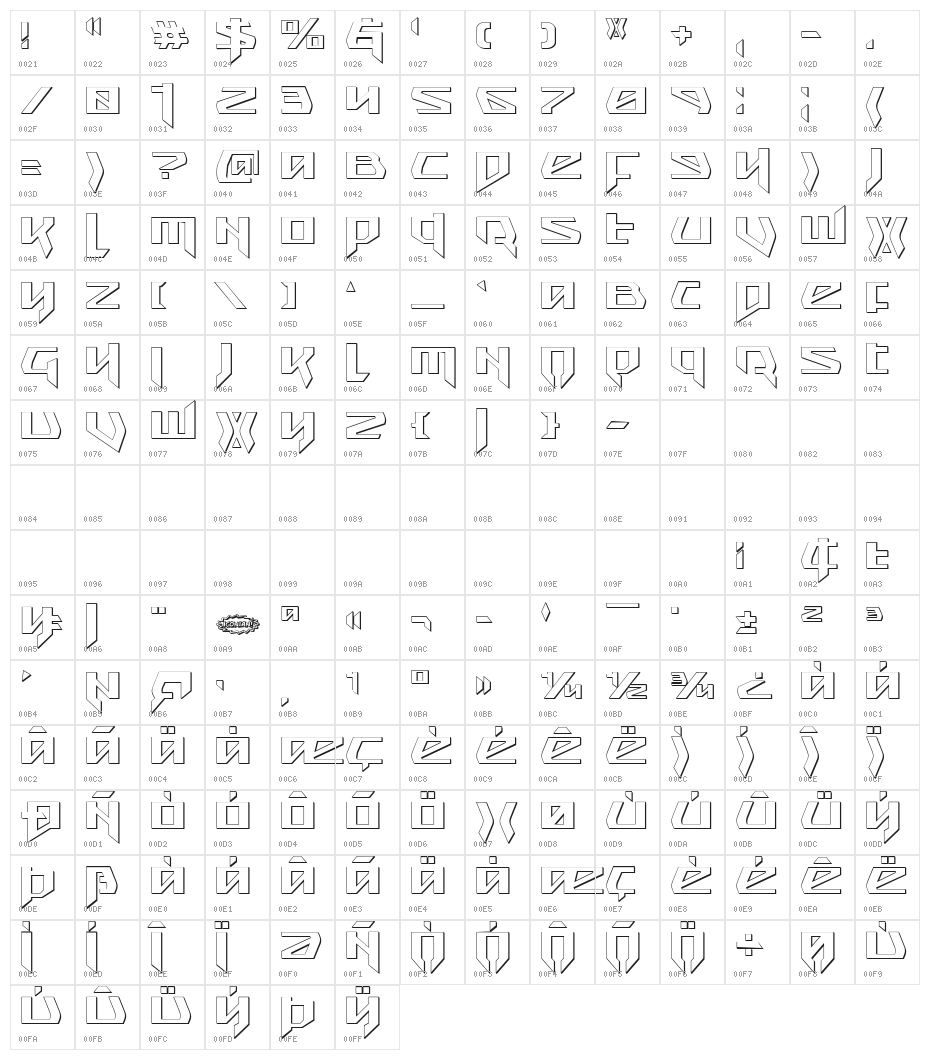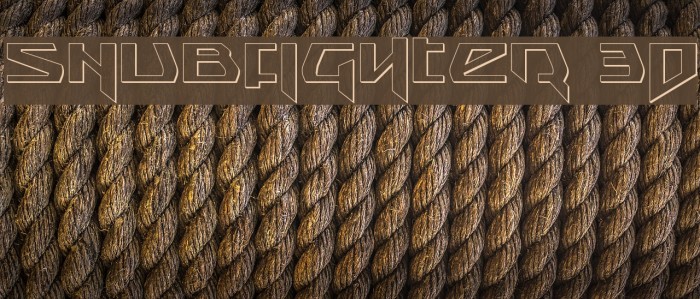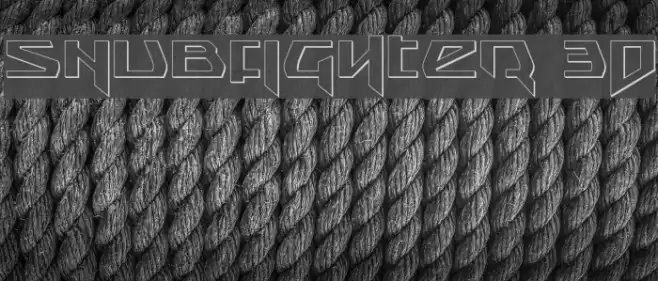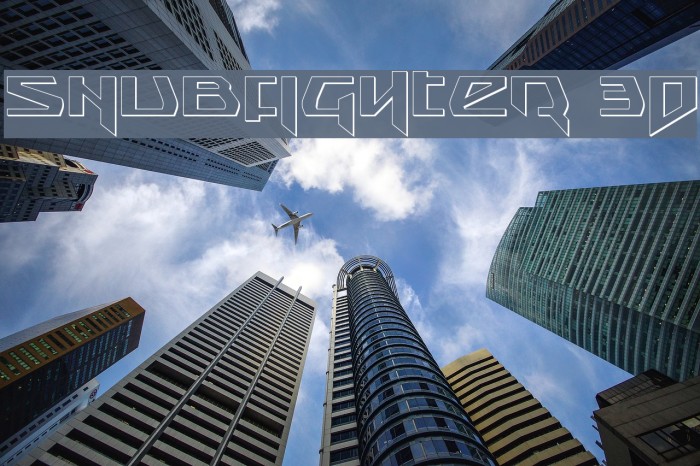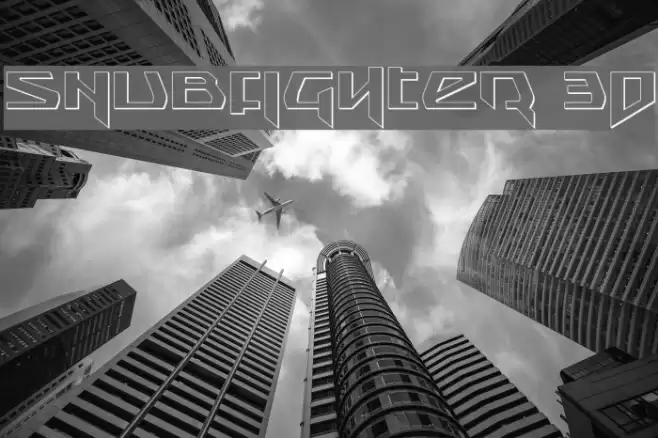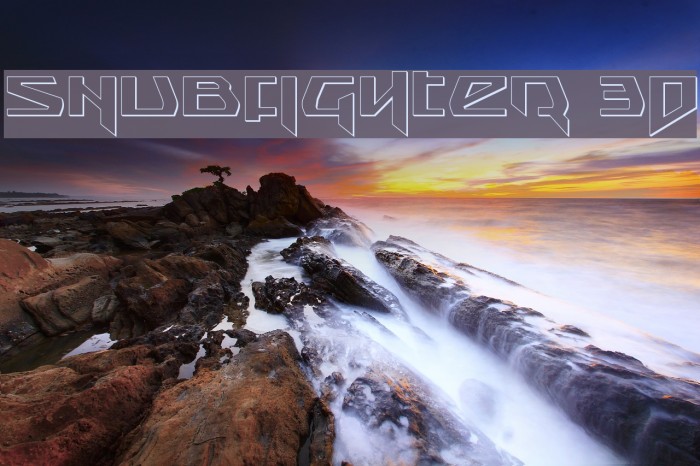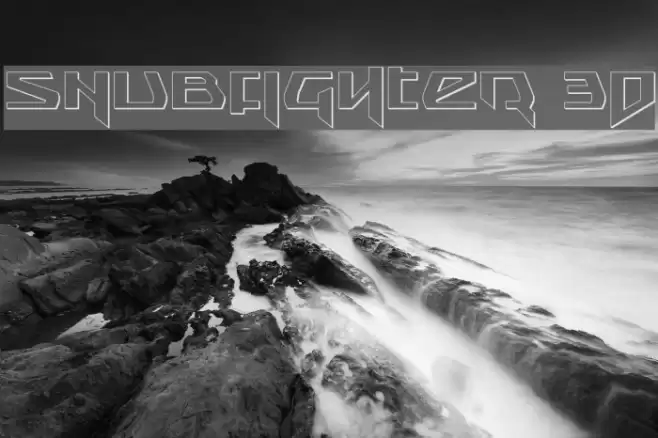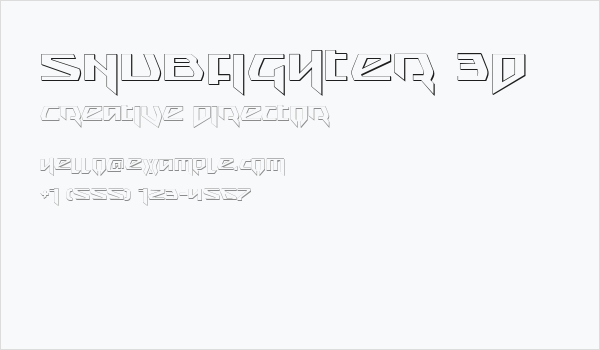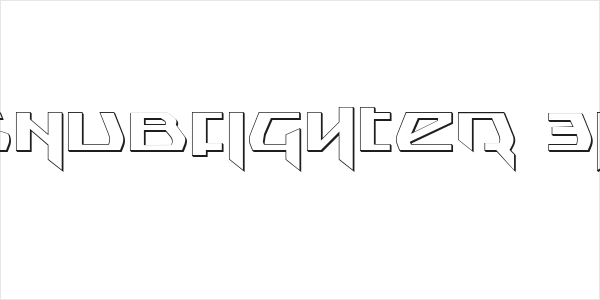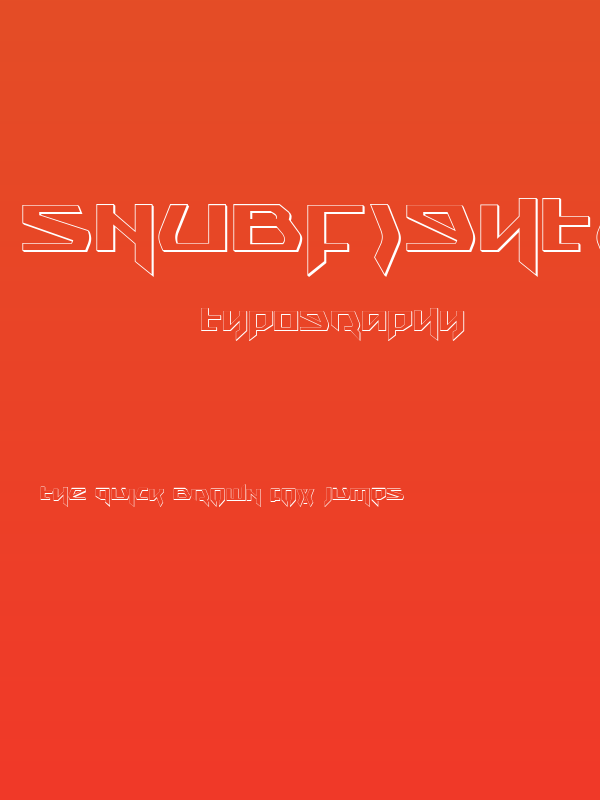
Snubfighter 3D Font
Snubfighter 3D Description
This font features a bold, futuristic design with sharp angles and geometric shapes, creating a striking and edgy appearance. The characters are outlined, giving them a three-dimensional effect that enhances their modern and dynamic look. The uppercase and lowercase letters maintain a consistent style, with a unique blend of straight lines and angular cuts. Numbers and special characters follow the same design principles, ensuring uniformity across the font. The overall aesthetic is reminiscent of sci-fi themes, making it suitable for projects that require a bold and innovative visual impact.
| Proposed Projects | Ideal for sci-fi themed designs, video game titles, movie posters, and tech-related branding. |